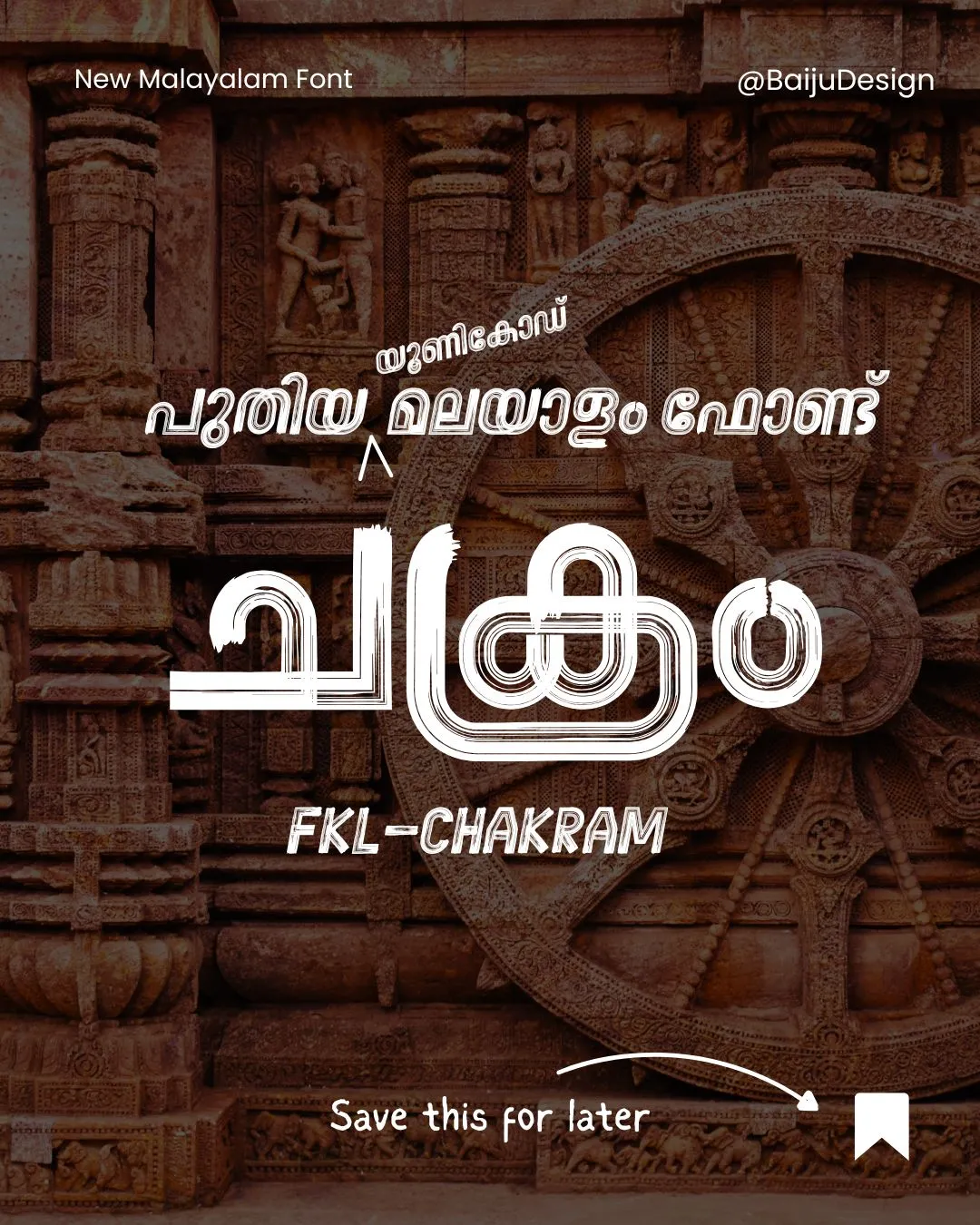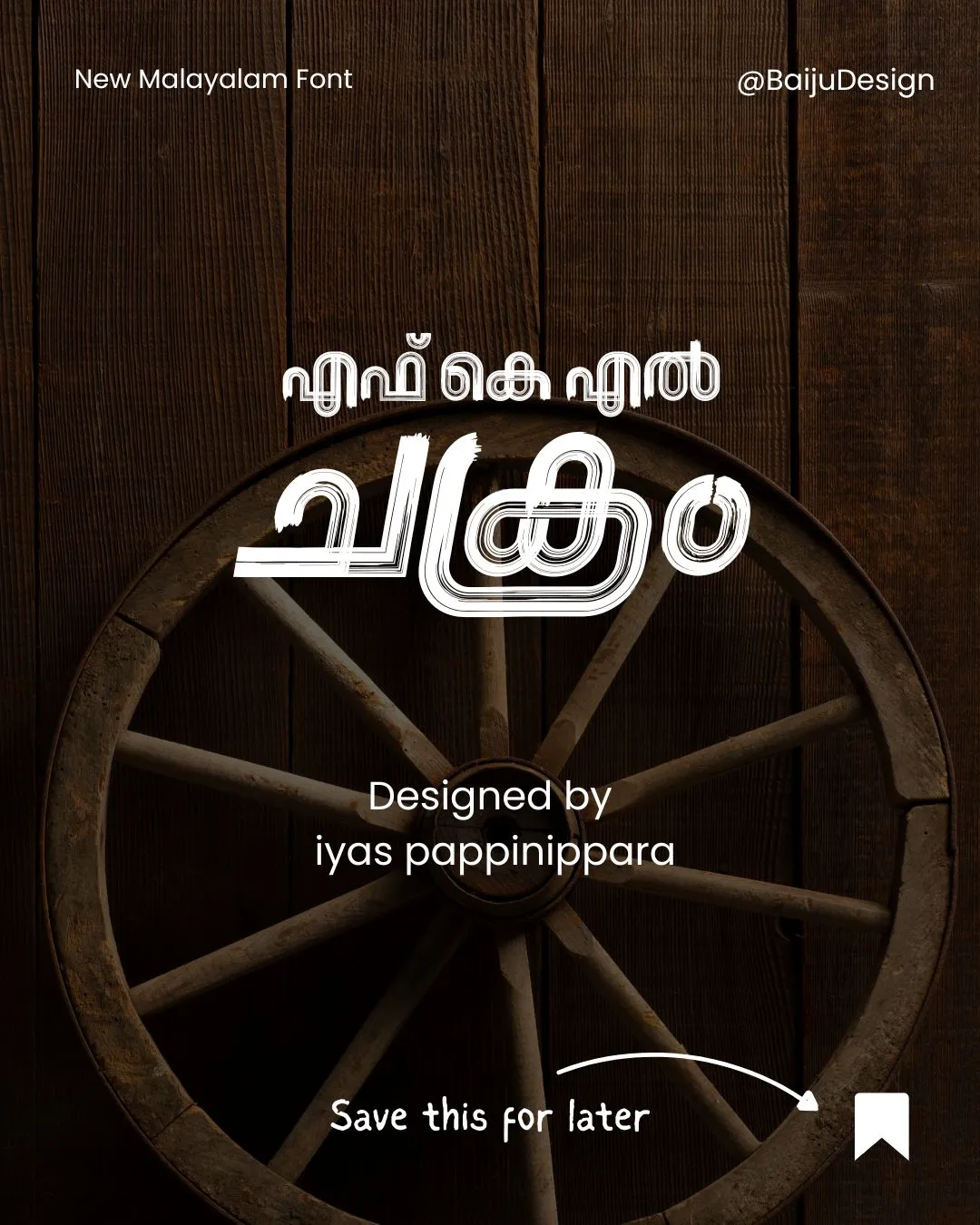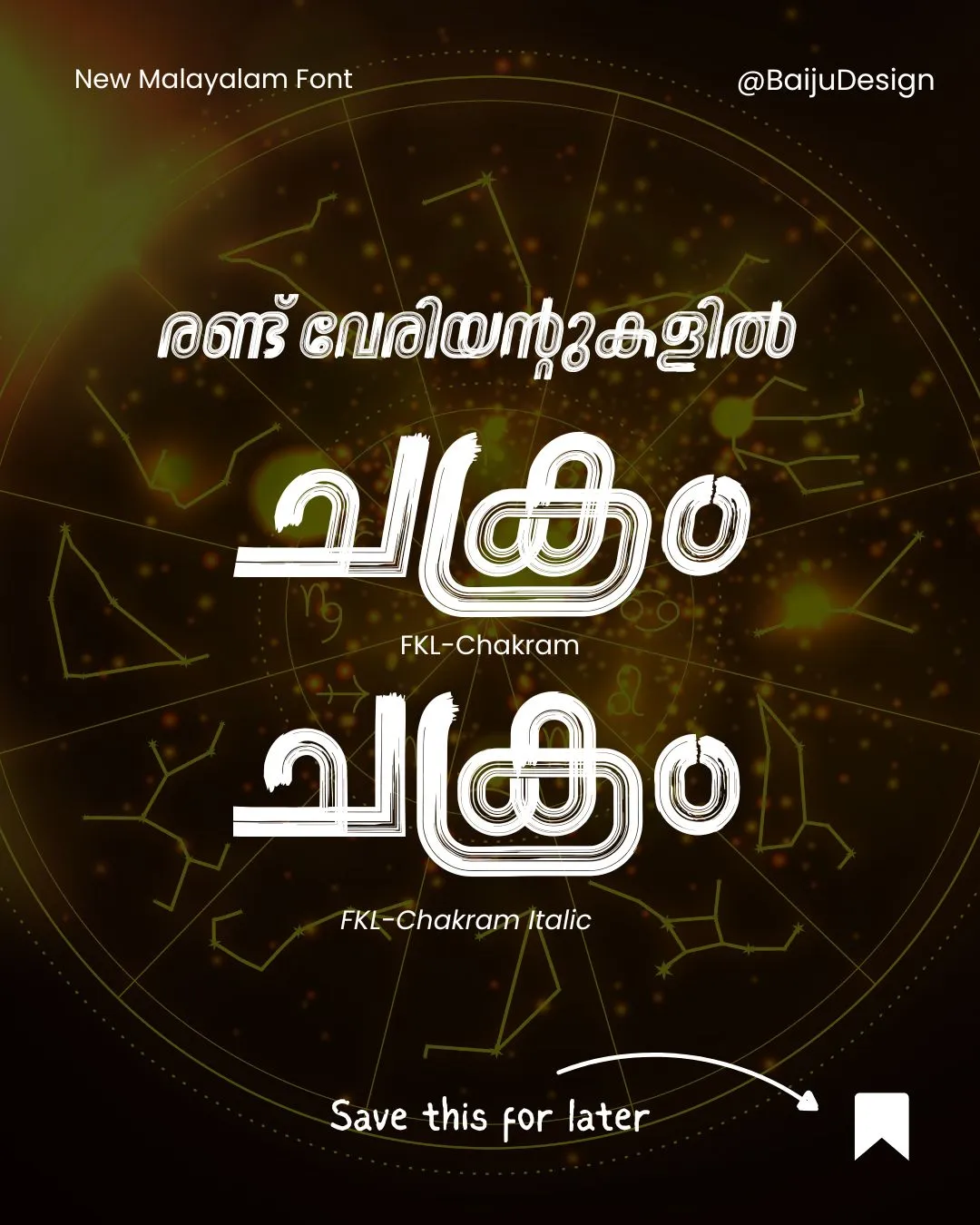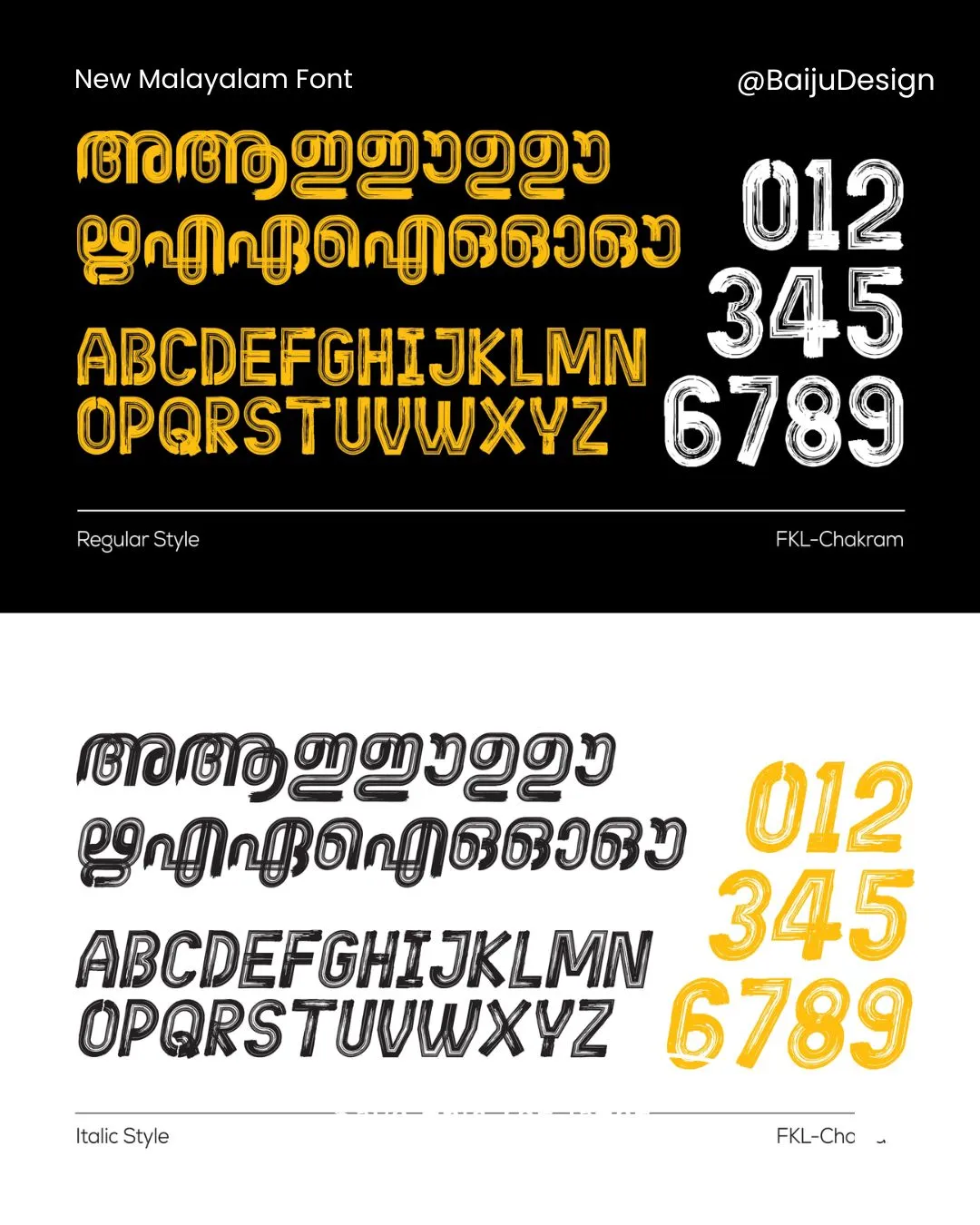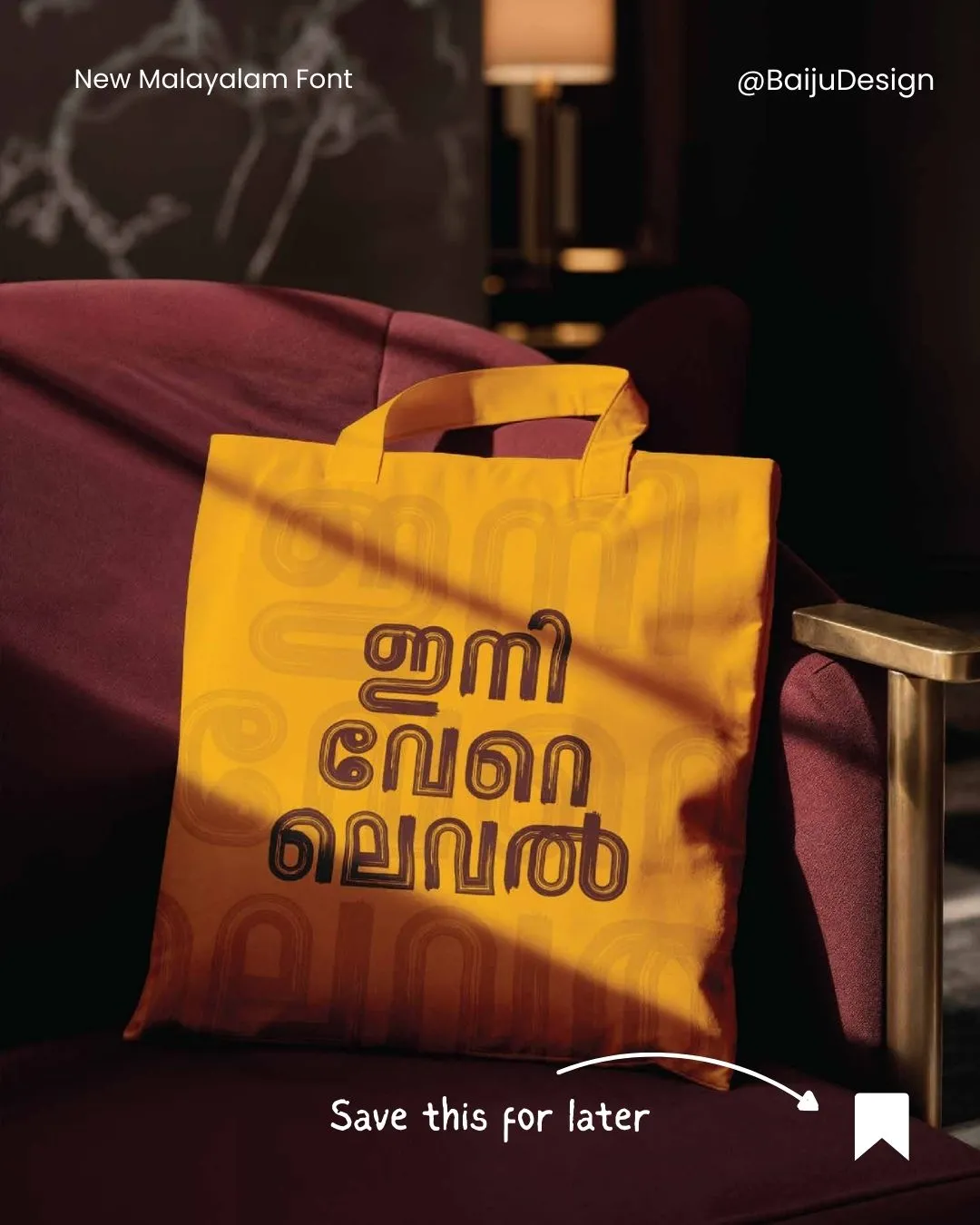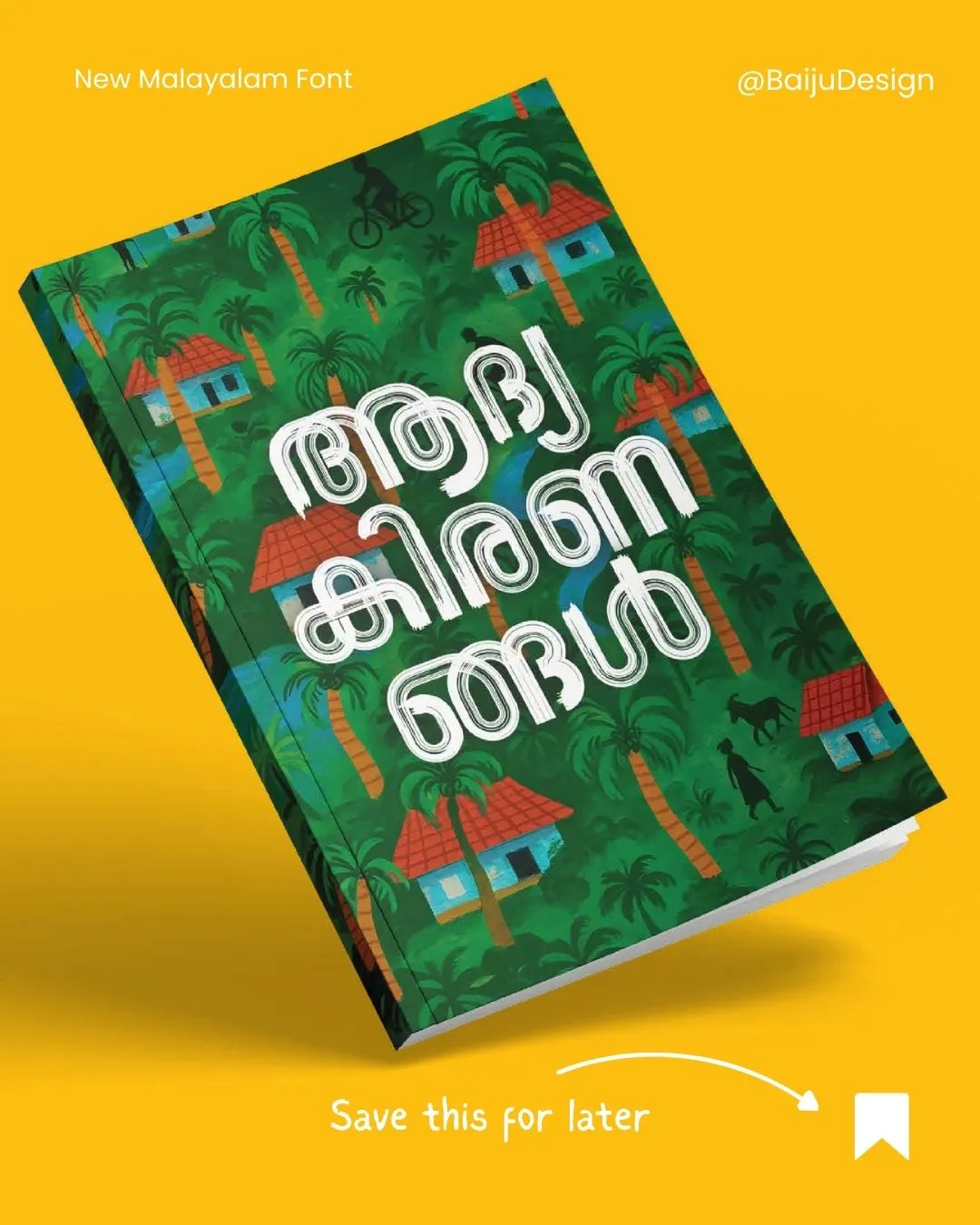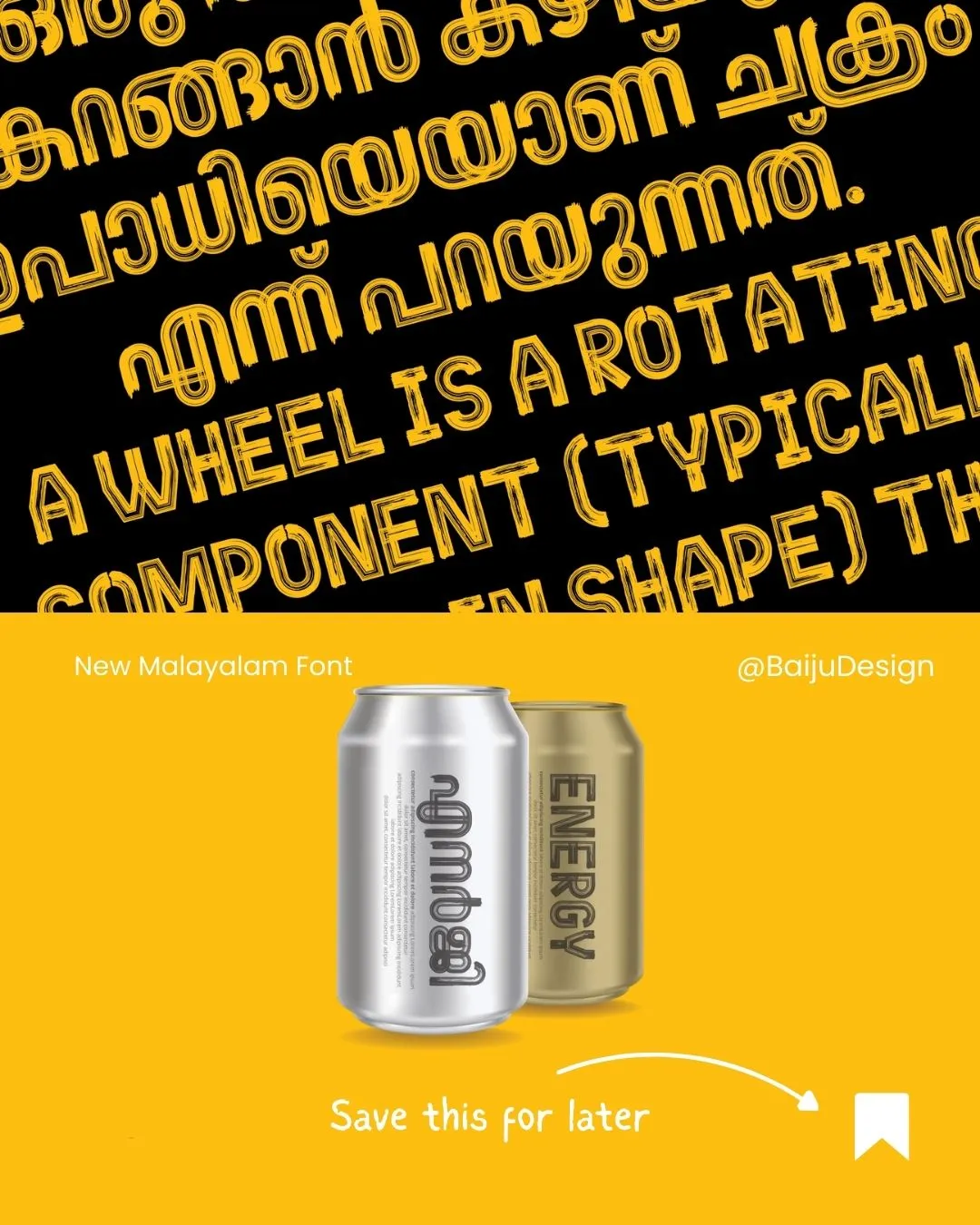
FKL Chakram Malayalam Font
A New Malayalam Typeface by FontKallos. FontKallos is happy to present FKL-Chakram, a new Malayalam font designed to enhance and support your creative projects.
The name “Chakram”, which means “wheel” in Malayalam, reflects the idea of motion and rotation. The font’s strokes are designed to flow in a circular pattern, giving it a lively and attractive look.
FKL-Chakram is a decorative font made for situations where a stylish and eye-catching design
is needed — such as branding, magazine titles, film posters, or digital content. It works well in both Malayalam and English, combining traditional style with a modern touch.
FKL-Chakram brings a fresh and original approach to Malayalam lettering.
FKL-Chakram is a step in that direction, offering new ideas and creative potential.
| Font Name | FKL Chakram |
| Language Support | Malayalam Unicode |
| Font Type | Display & Title |
| Creator / Designer | iyas pappinippara |
| Usage | Best for body text and branding |